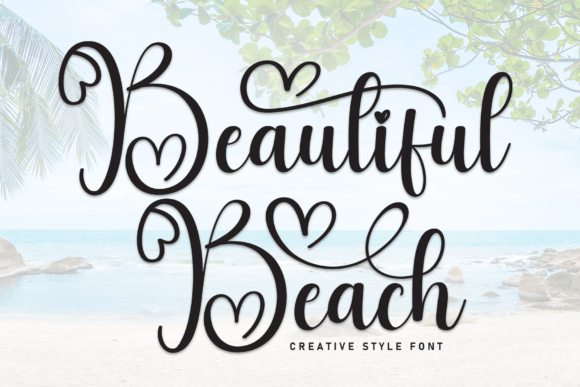
The Perfect Typography for Your Next Masterpiece
Do you remember that moment when a beautiful design suddenly sparks an idea in your mind? Maybe it was a stunning sunset on the beach, a vintage poster, or a handwritten note from a loved one. Whatever it was, it left an indelible mark on your creative soul. As a designer, you know that the right typography can elevate your work from ordinary to extraordinary.
That’s where Beautiful Beach Font comes in – a stunning, handwritten font that will transport your projects to a higher level of elegance and sophistication. Designed to evoke the feeling of a tranquil beachside stroll, this exquisite font combines classic calligraphy with a modern twist, making it perfect for any design project that requires a touch of whimsy and refinement.
Beautiful Beach Font Key Features
- Unique Characteristics: This font features a unique blend of modern and beach-inspired elements, with intricate wave patterns and subtle texture effects.
Designer Review: Beautiful Beach Font
Overall, I think the Beautiful Beach Font has some lovely qualities that could make it a great choice for certain projects, but it also has some limitations that might hold it back.
✨ One thing that works well is the font’s relaxed, casual vibe. It’s perfect for anything that needs to evoke a sense of summer or beachy feel. The font also has a nice, rounded aesthetic that’s easy on the eyes.
✨ The Beautiful Beach Font also has a wide range of weights and styles, making it easy to customize for different projects. This is especially useful for designers who need to create multiple versions of a design.
⚠️ One limitation is that the font can be a bit too casual for certain projects. It’s not suitable for formal or professional designs, and it might come across as unprofessional if used in the wrong context.
⚠️ Another limitation is that the font’s letters can be a bit too similar in certain weights. This can make it difficult to read, especially at smaller font sizes.
Overall, I think the Beautiful Beach Font is a nice addition to any designer’s toolkit, but it’s not a one-size-fits-all solution. It’s perfect for projects that need a relaxed, casual vibe, but it might not be the best choice for more formal or professional designs.
- Perfect for projects that need a relaxed, casual vibe
- Wide range of weights and styles
- Easy to customize
- Not suitable for formal or professional designs
- Can be difficult to read at smaller font sizes
Beautiful Beach Font Practical Application Guide
The Beautiful Beach Font is perfect for creating beach-themed designs, such as:
- Beach party invitations
- Summer vacation posters
- Watercolor-inspired artwork
Remember to pair the Beautiful Beach Font with a clean and simple design to let the font shine.
Alternative Beach Fonts for Designers
Pacifico is a beautiful, modern script font that evokes the feeling of a beach vacation. It’s ideal for use in branding, invitations, and other creative projects where a touch of elegance is desired. Compared to Beautiful Beach Font, Pacifico has a more refined and sophisticated look, making it suitable for high-end designs.
Great Vibes is a lively, handwritten font that captures the carefree spirit of the beach. It’s perfect for use in social media graphics, posters, and other promotional materials where a fun and energetic vibe is needed. Unlike Beautiful Beach Font, Great Vibes has a more playful and casual feel, making it ideal for younger audiences.
Lato is a clean, sans-serif font that works well for beach-themed designs that require a more subtle approach. It’s suitable for use in body text, headings, and other areas where readability is important. Compared to Beautiful Beach Font, Lato has a more minimalist and versatile design, making it a great choice for a wide range of projects.